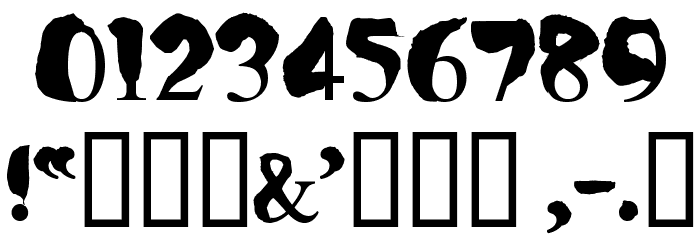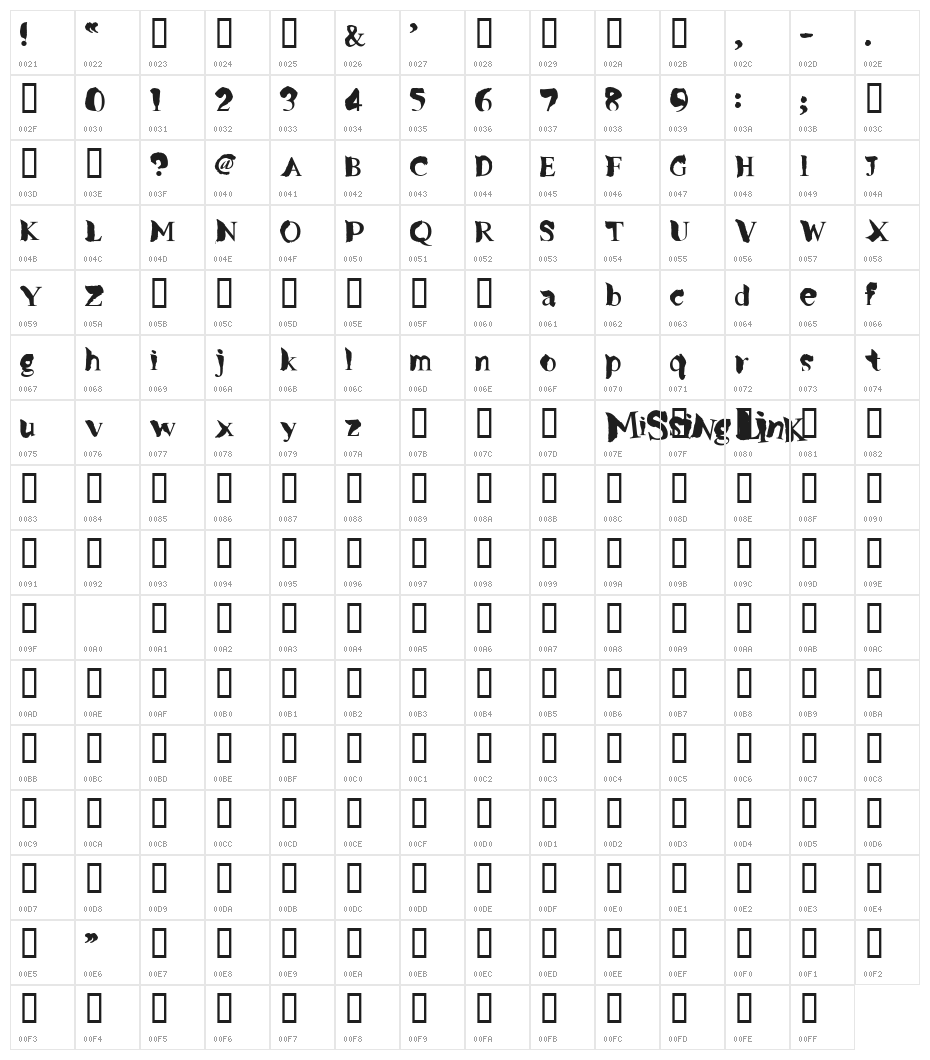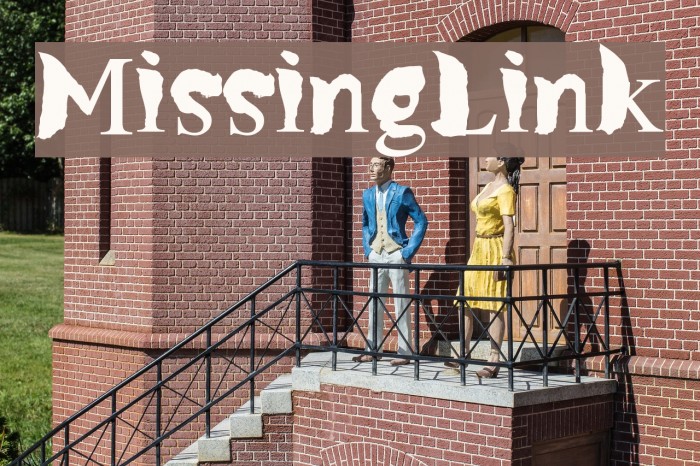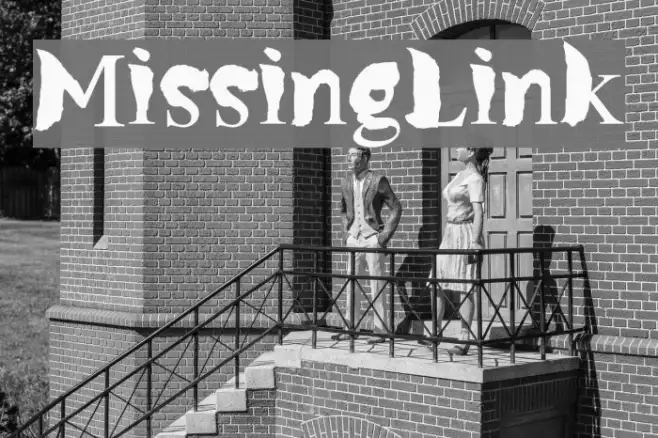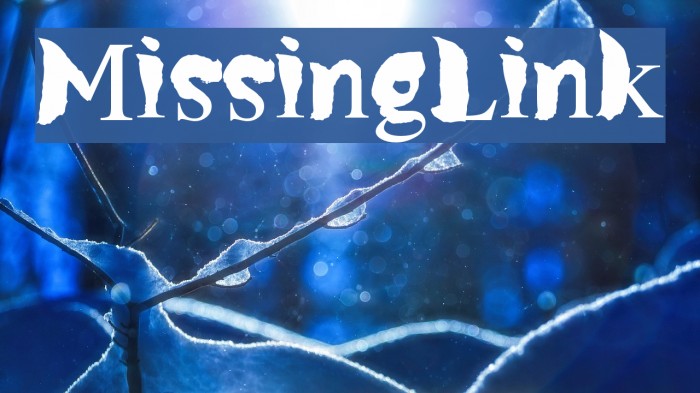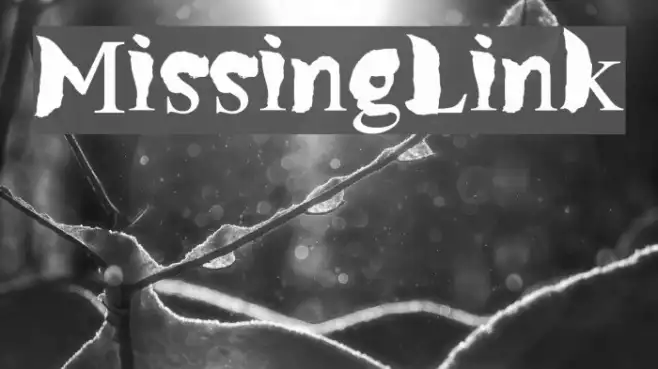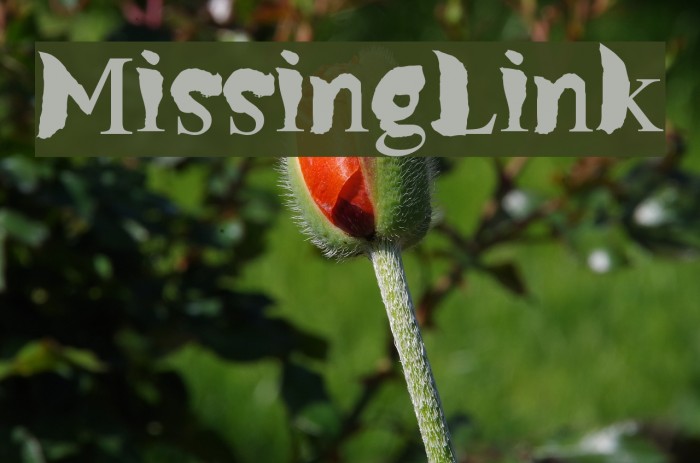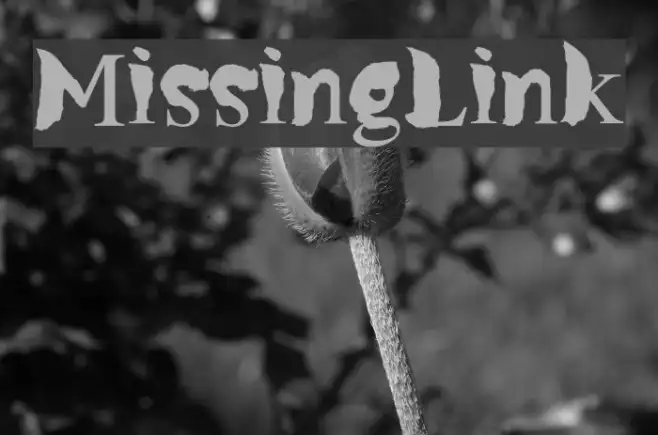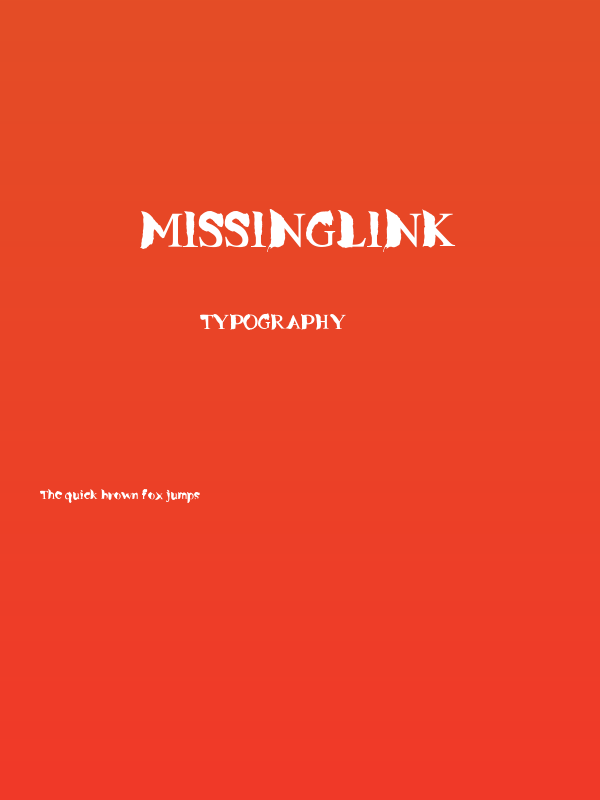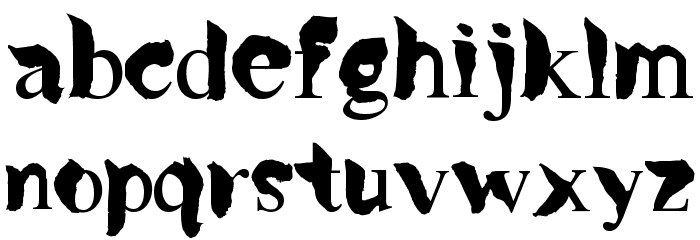
MissingLink Font
MissingLink Description
This font features a bold and dramatic style with a strong presence. The characters have a hand-drawn, brush-like appearance, giving them an organic and dynamic feel. The strokes are thick and uneven, adding to the rustic and artistic vibe. The uppercase letters are particularly striking, with sharp angles and unique forms that stand out. The lowercase letters maintain the same boldness, with some characters having distinctive tails and curves. The numbers are equally bold, with a consistent style that matches the letters. The special characters are creatively designed, fitting seamlessly with the overall aesthetic.
| Proposed Projects | Ideal for projects that require a strong visual impact, such as posters, album covers, or branding for creative industries. |